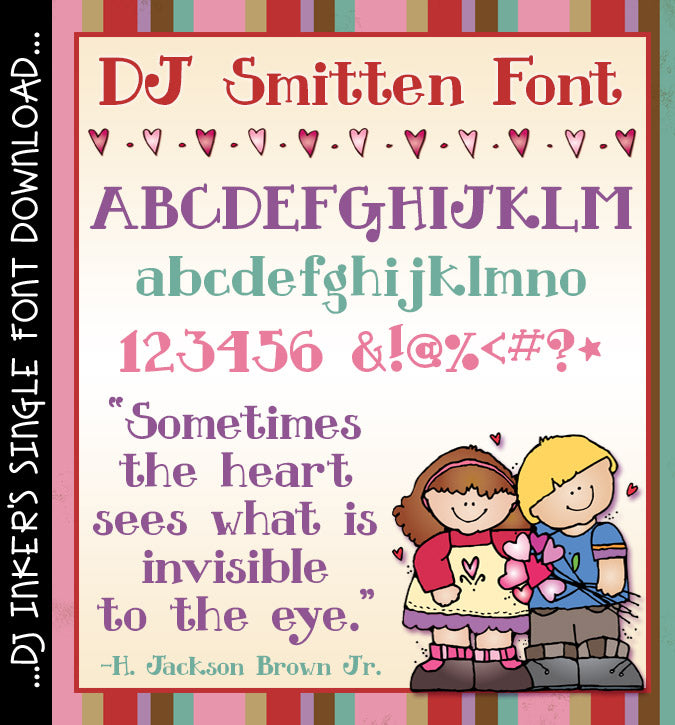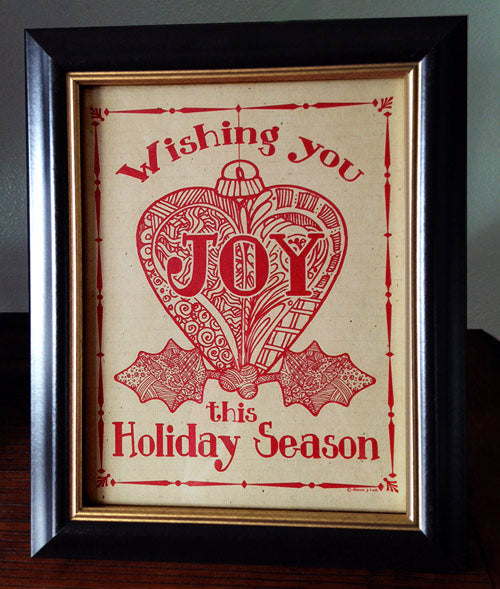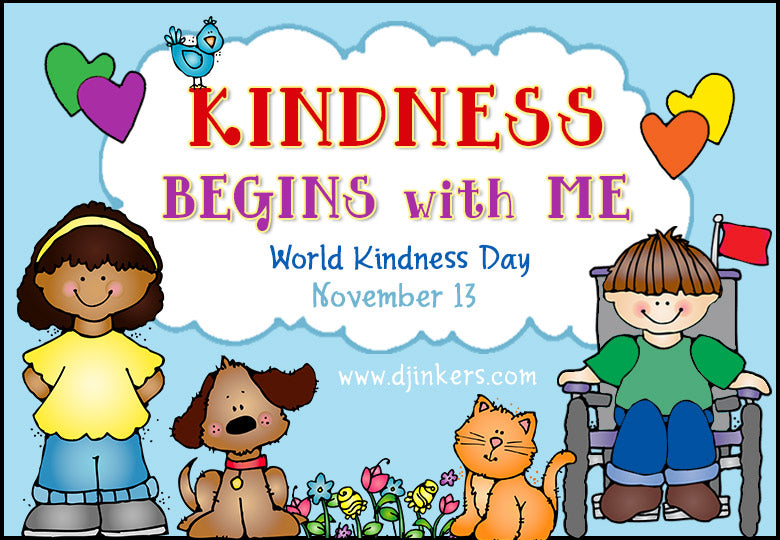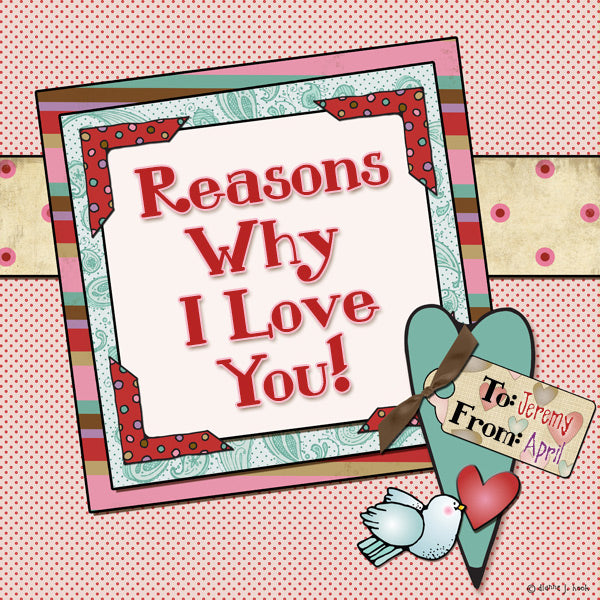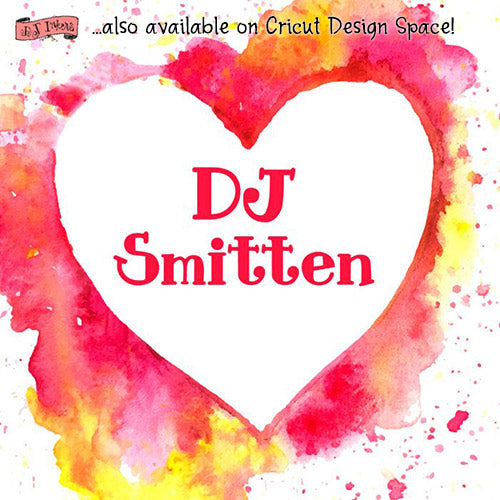
DJ Smitten Font Download
You'll be positively 'smitten' when you type-up your projects with this charming font! DJ Smitten is bold and strong, but still sweet and easy to read... making it extremely versatile for projects at home, school, office or crafting. This serif font looks great for headlines or text, in any size or color.